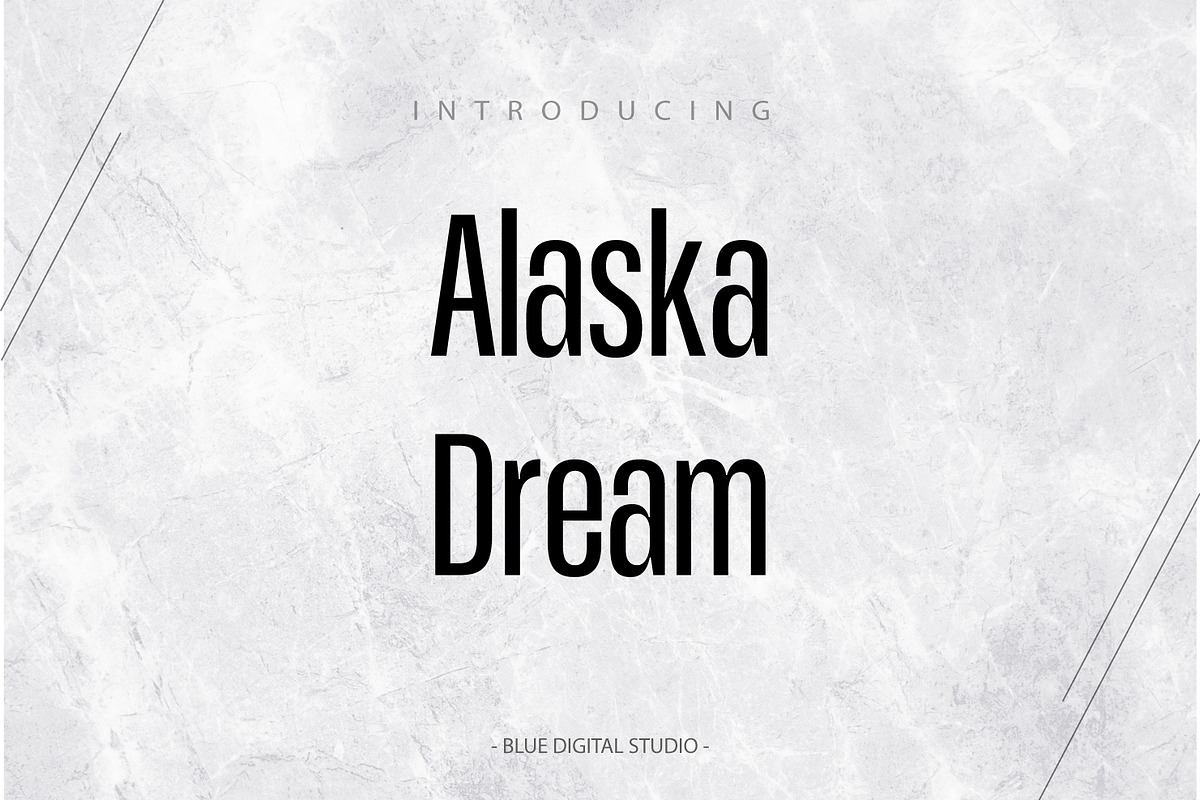
Alaska Dream Font Free Download is a clean and modern sans serif typeface inspired by the serenity and simplicity of nature. With smooth curves and minimalistic elegance, this font is perfect for branding, website headers, product packaging, social media posts, and editorial design that calls for a fresh, calming vibe.
Whether you’re designing for a wellness brand, travel blog, or minimalist clothing label, Alaska Dream offers versatility and clarity. Its subtle charm and balanced proportions make it a great choice for both headlines and body text. Alaska Dream Font Free Download allows you to explore this stylish font in personal use before committing to a commercial license.
Bring a breath of fresh air to your designs with Alaska Dream — a sans serif that speaks softly but stands out.